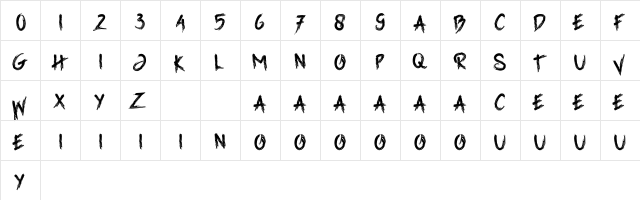
Grim Reaper Regular
| Foundry | Naharstd |
| Designer | Nanda Hardiansyah |
Design Context for Grim Reaper Typeface
Grim Reaper is a composed and adaptable typeface that performs quietly and consistently across a wide range of design contexts.